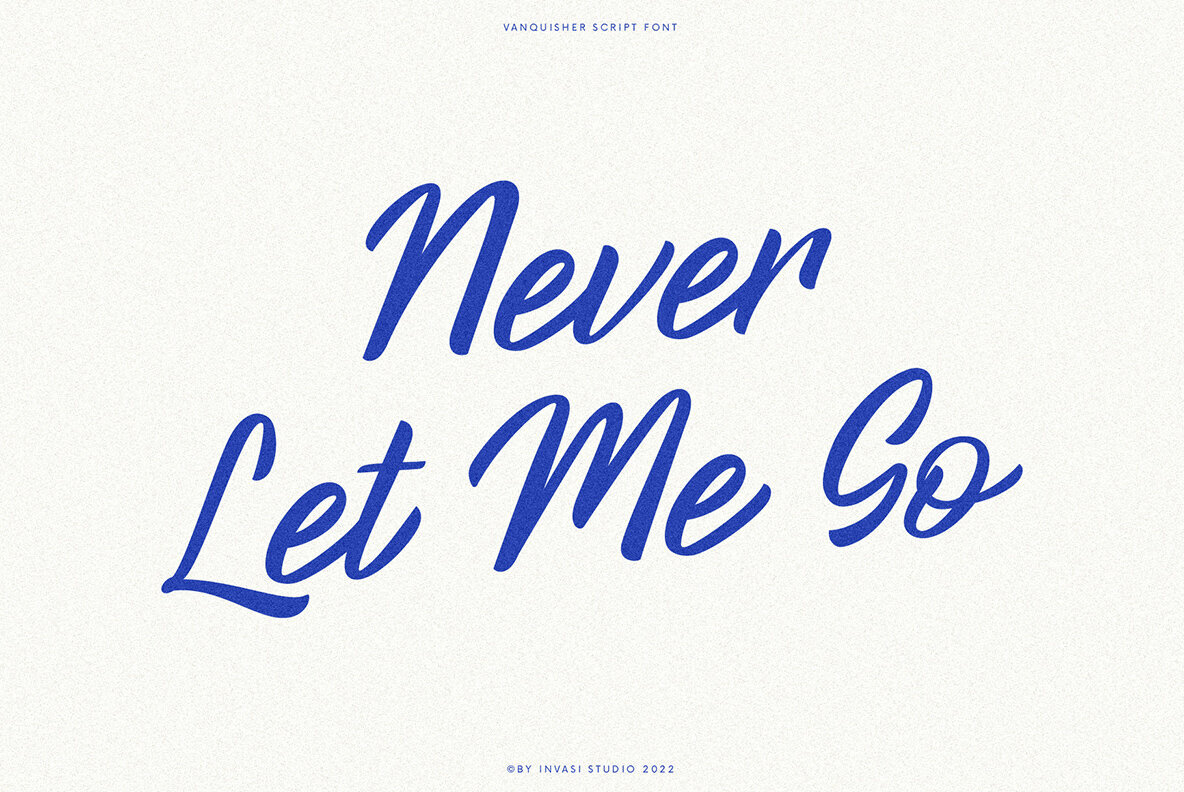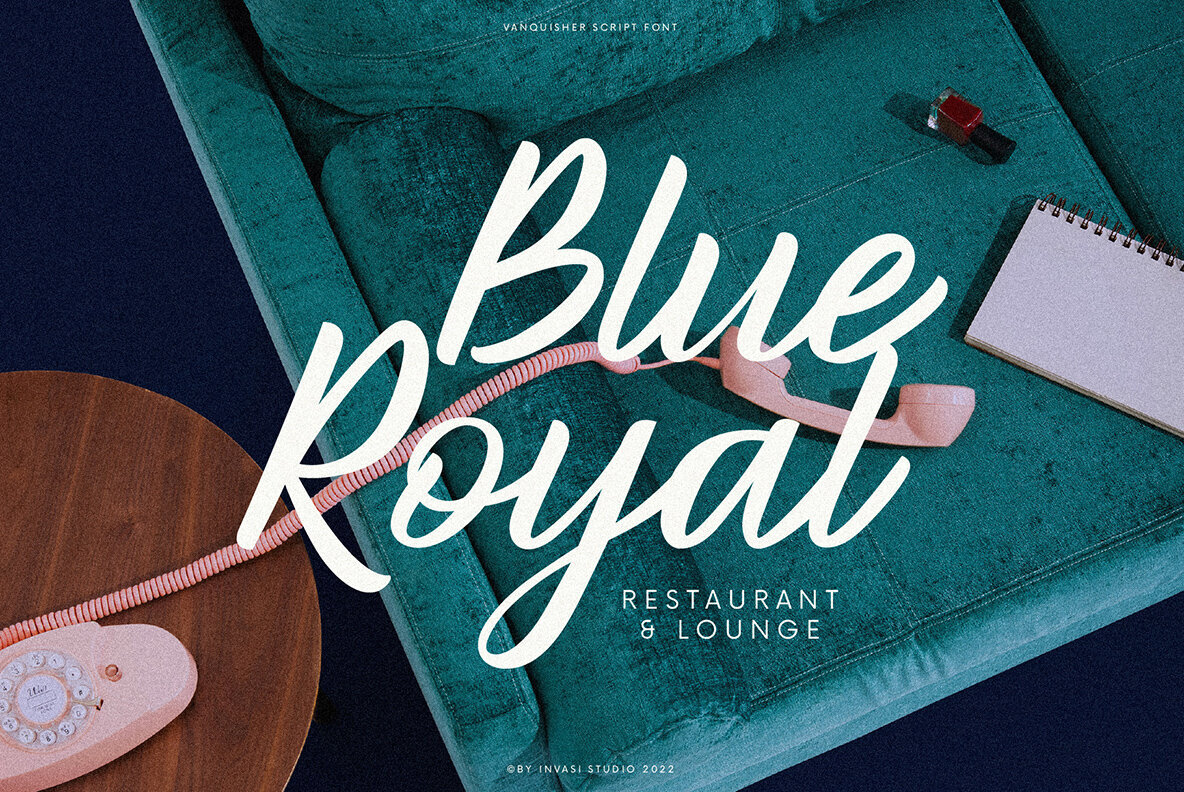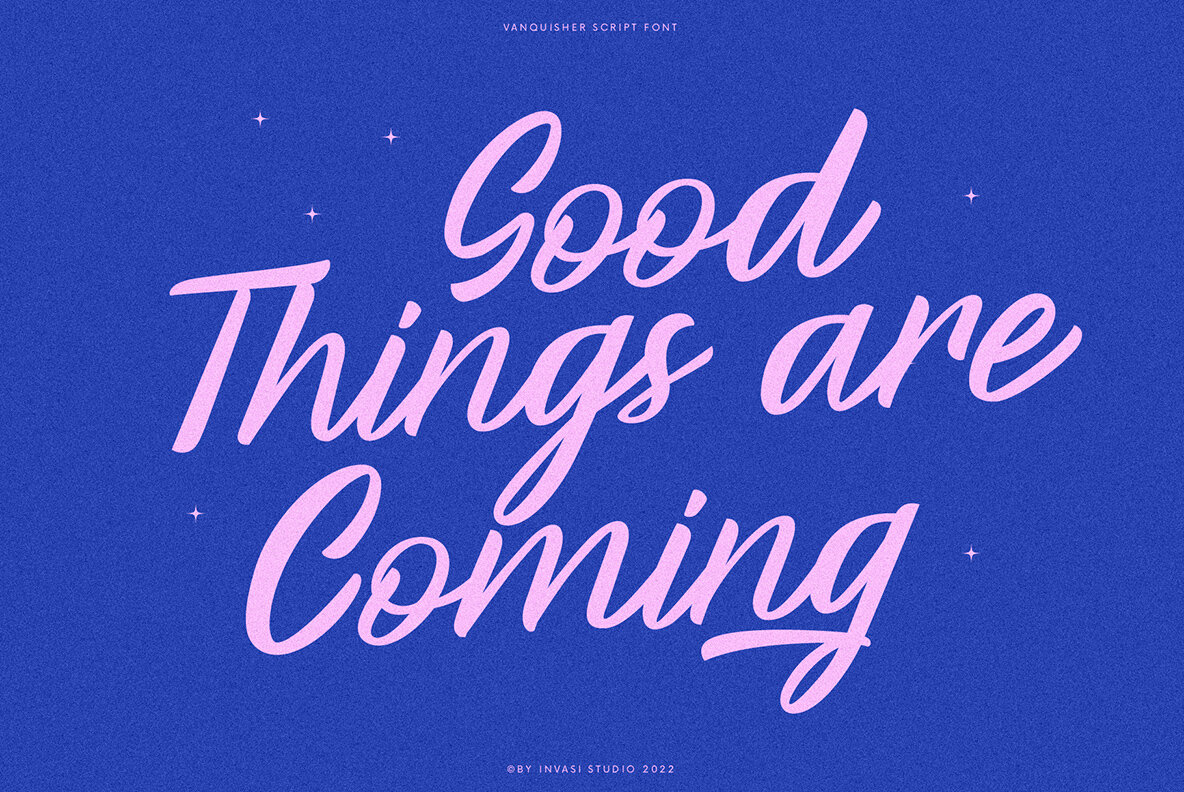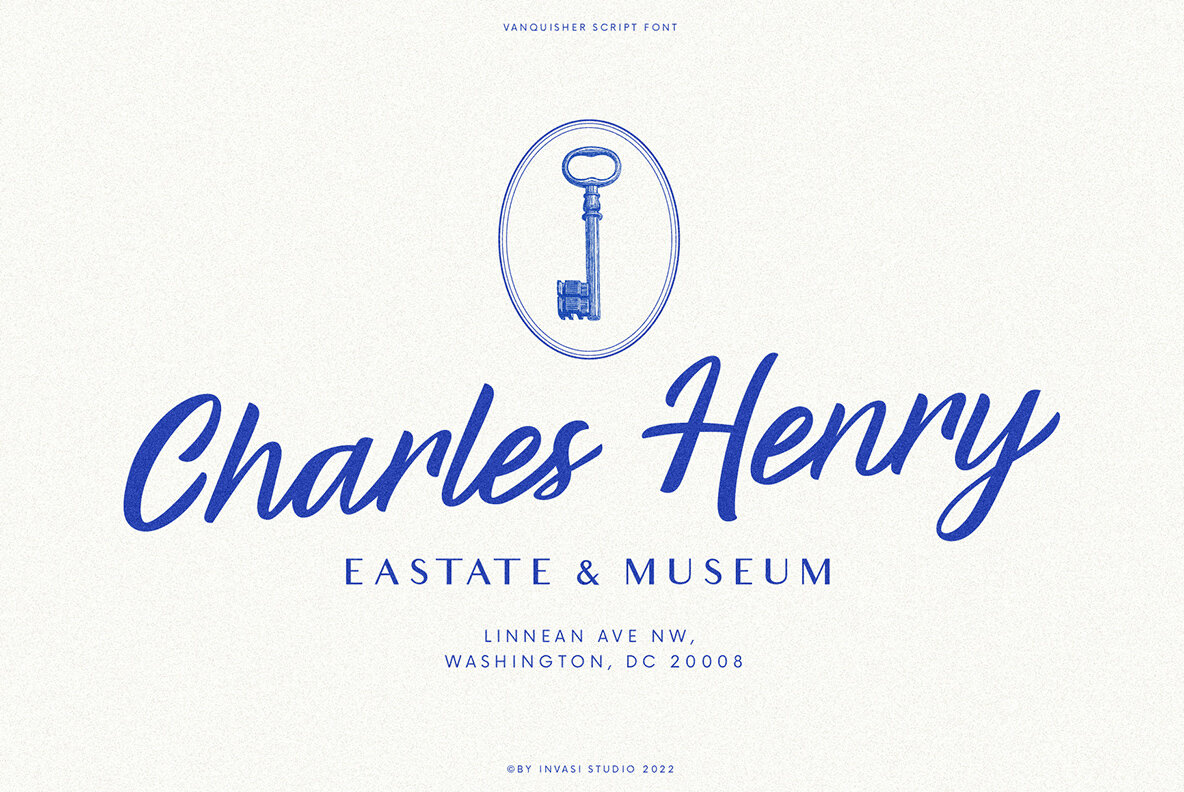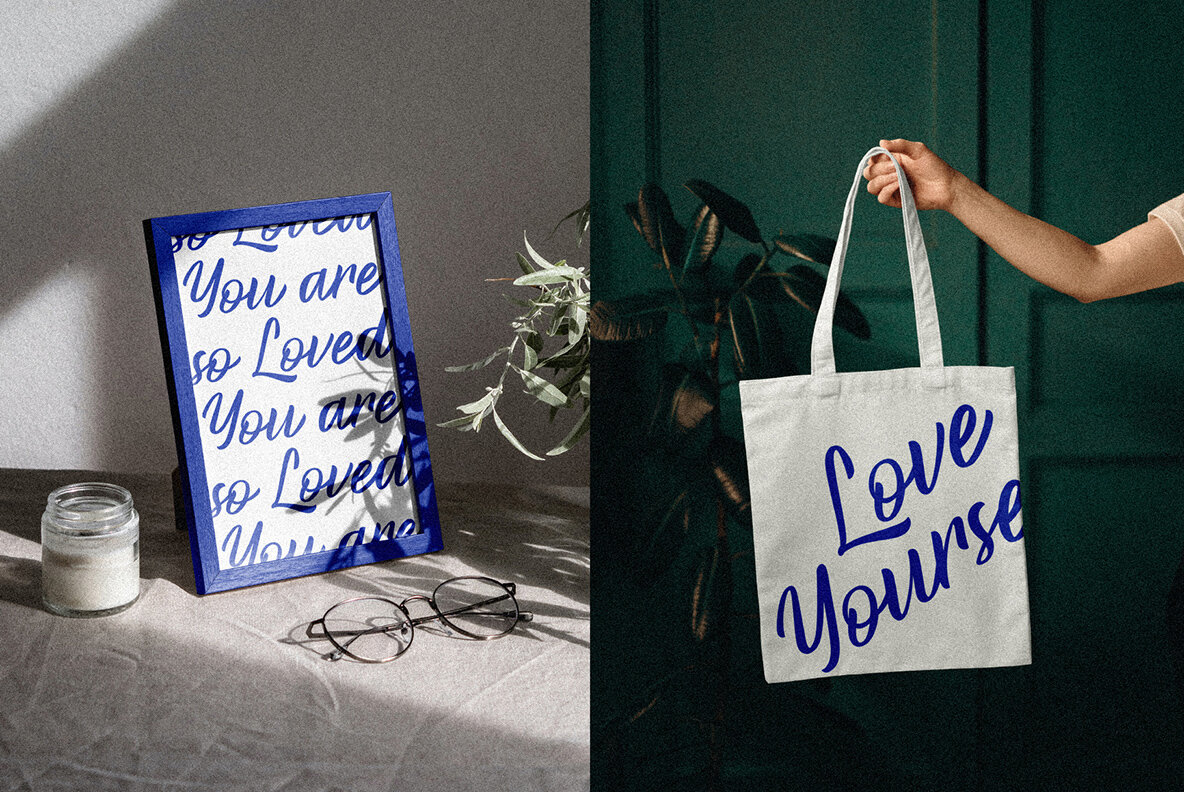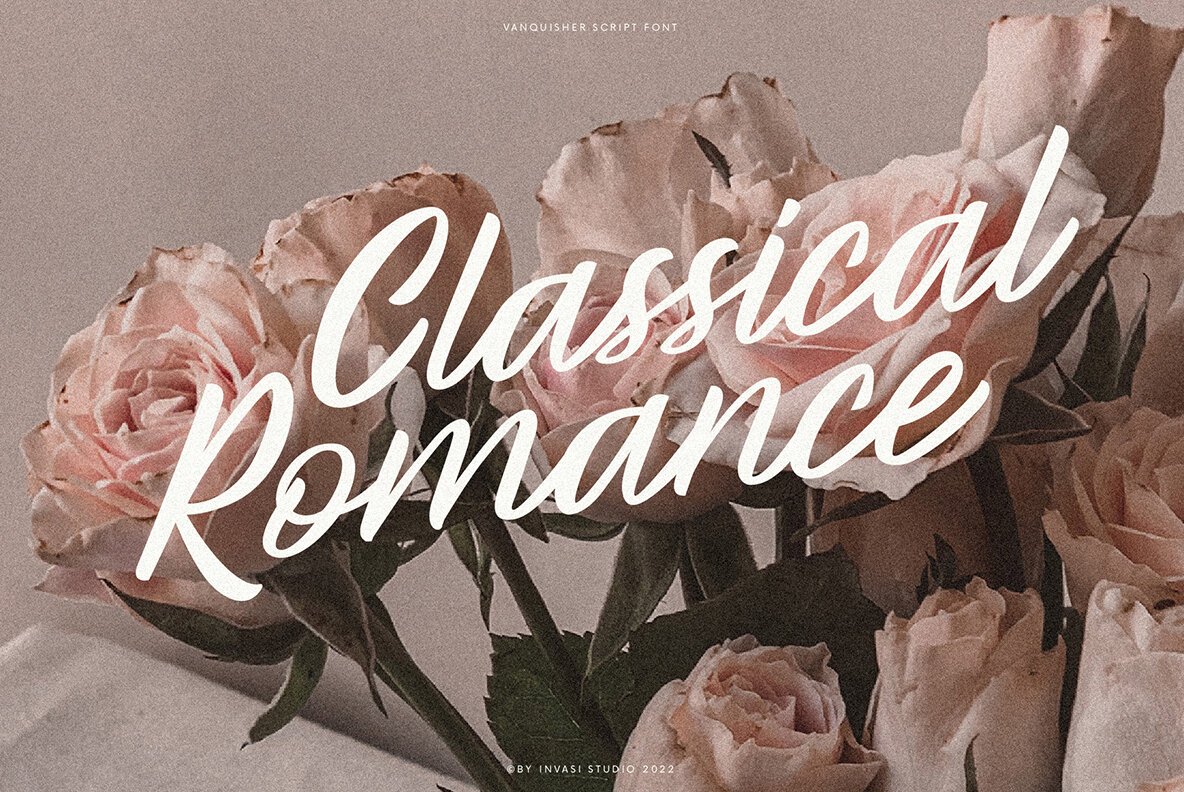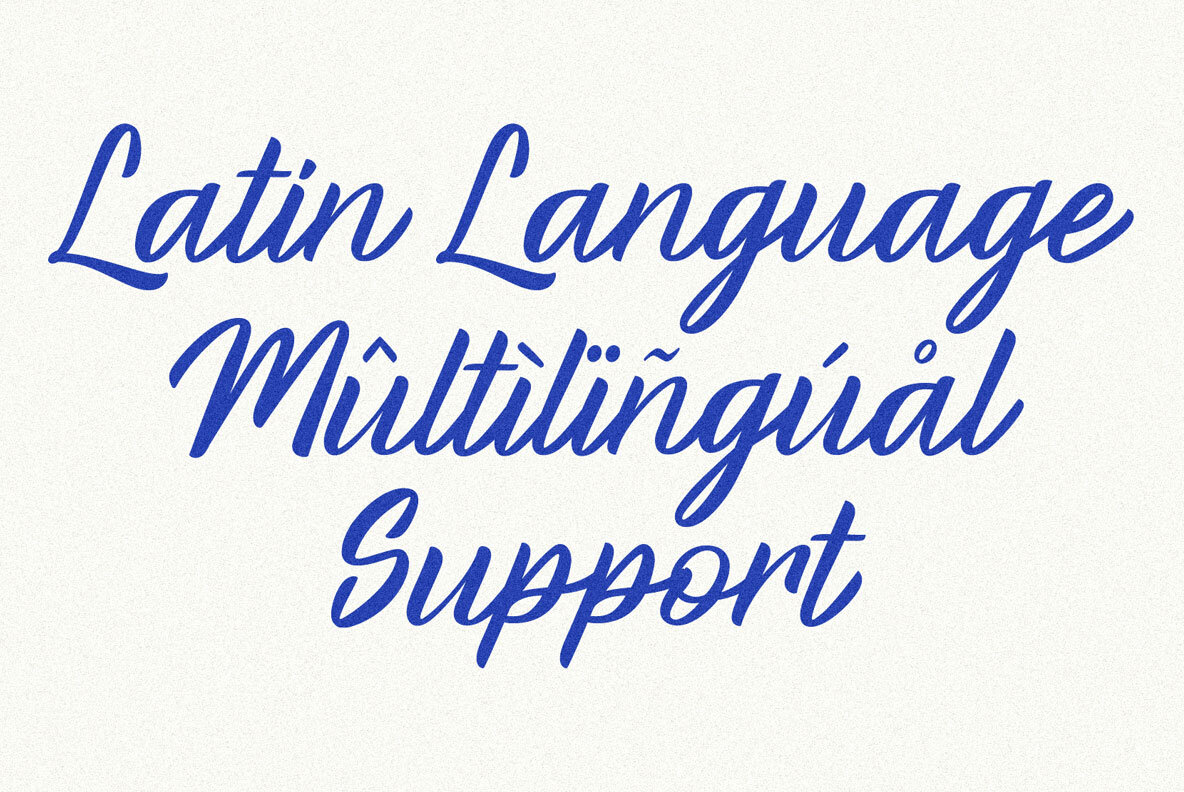
Vanquisher: Bold Elegant Calligraphy Script
Meet Vanquisher, a classic calligraphy script that exudes elegance and sophistication. With its fluid swashes and bold stroke lines, this font is designed to capture attention while maintaining a graceful appearance. Ideal for a variety of design applications, from branding and logo design to wedding invitations and decorations, Vanquisher seamlessly combines traditional calligraphy elements with a modern touch.
• Swashes in Uppercase – Adds a striking flair to your text.
• Contextual Alternatives – Offers diverse styling options.
• Multi-language Support – Accommodates a wide range of languages and scripts.